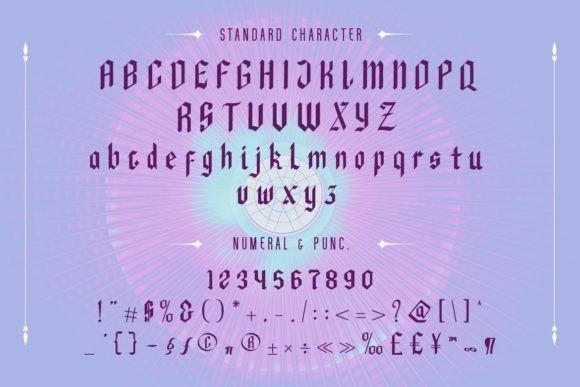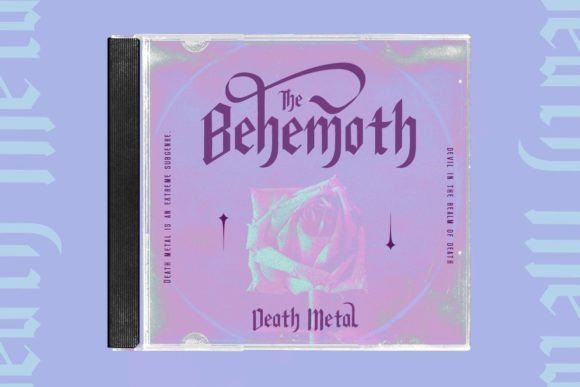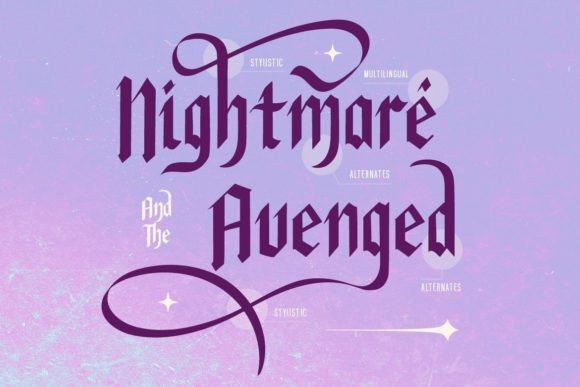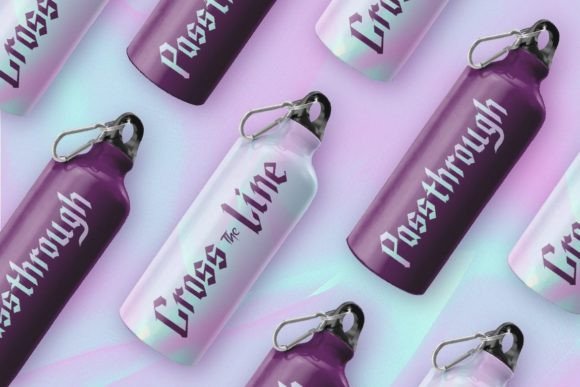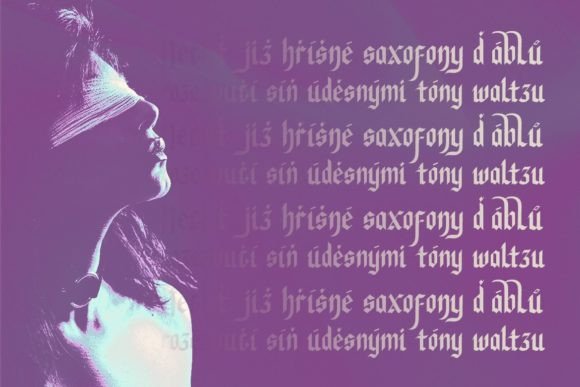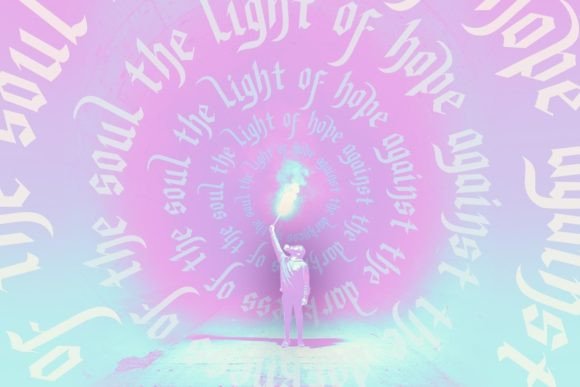
Introduction to Juvelith Font
Juvelith is a modern black letter font inspired by contemporary design and calls back to Old English Gothic Scriptures.
This font is good for logo design, Social media, Movie Titles, Books Titles, short text even long text letters, and good for your secondary text font with sans or serif .